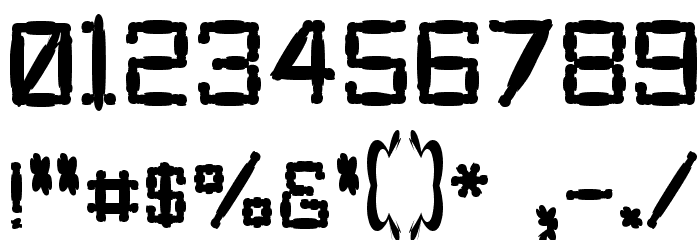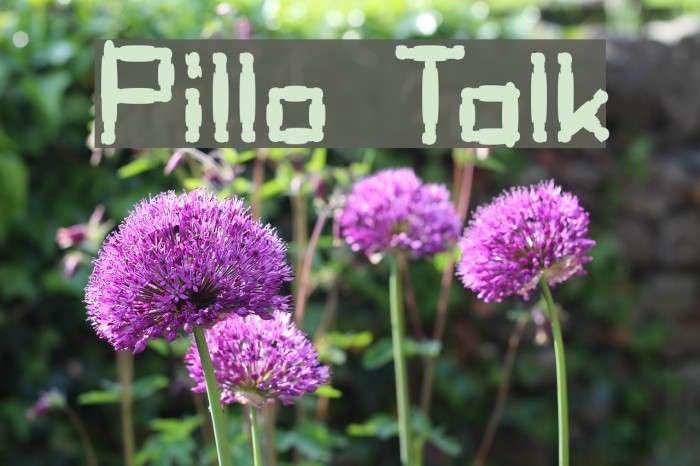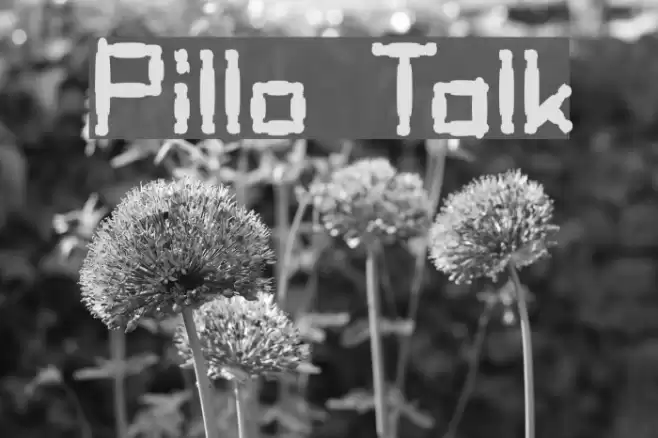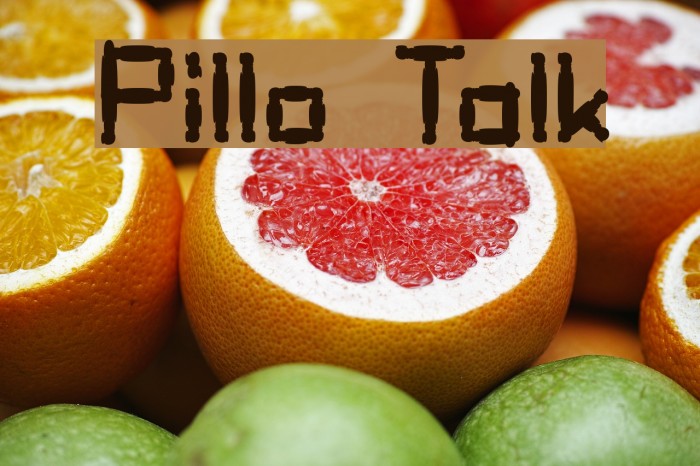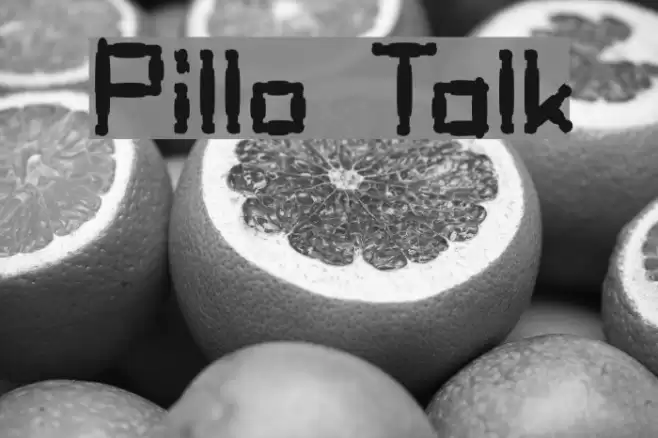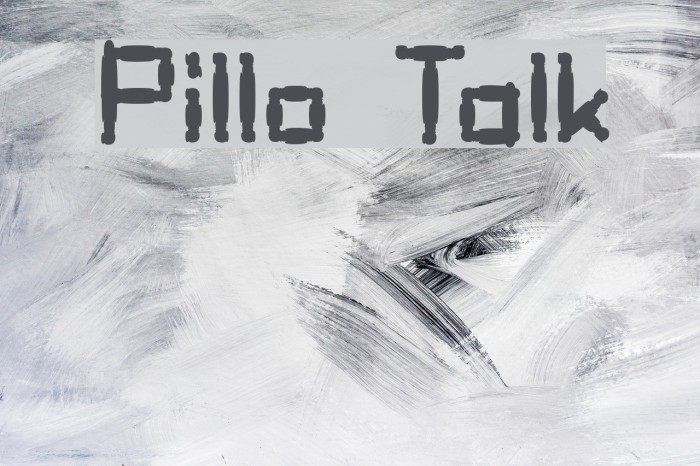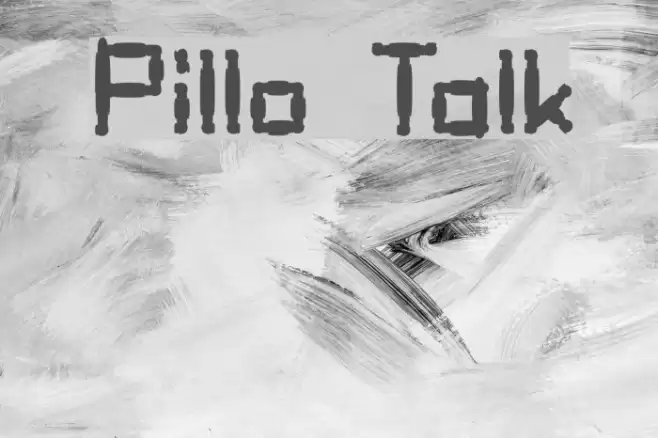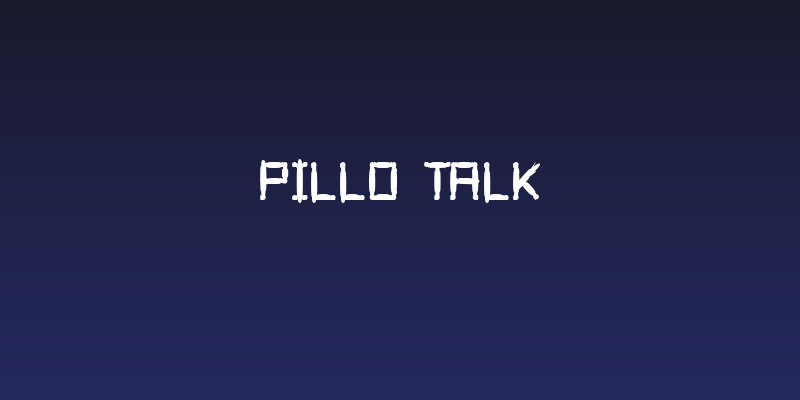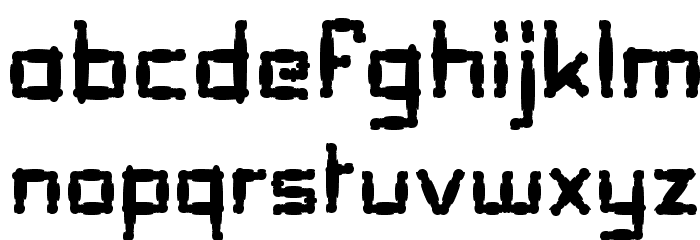
Pillo Talk Font
Pillo Talk Description
This font features a unique, playful design with a bold and slightly irregular structure. The characters are formed with a rounded, pillow-like appearance, giving them a soft and approachable feel. The uppercase and lowercase letters maintain a consistent style, with the uppercase being slightly taller and more pronounced. The numbers and special characters follow the same design principles, ensuring a cohesive look across all elements. The font's distinctive style makes it stand out, while its readability remains intact.
| Overall Style | Playful, Creative |
| Proposed Projects | Ideal for children's books, playful branding, creative posters, and casual invitations. |